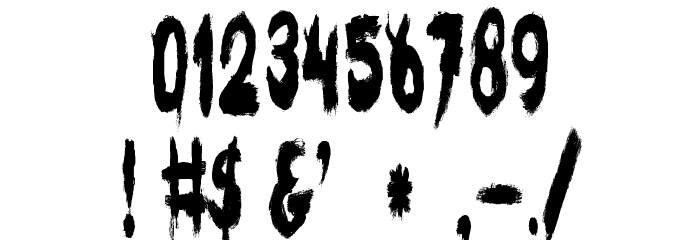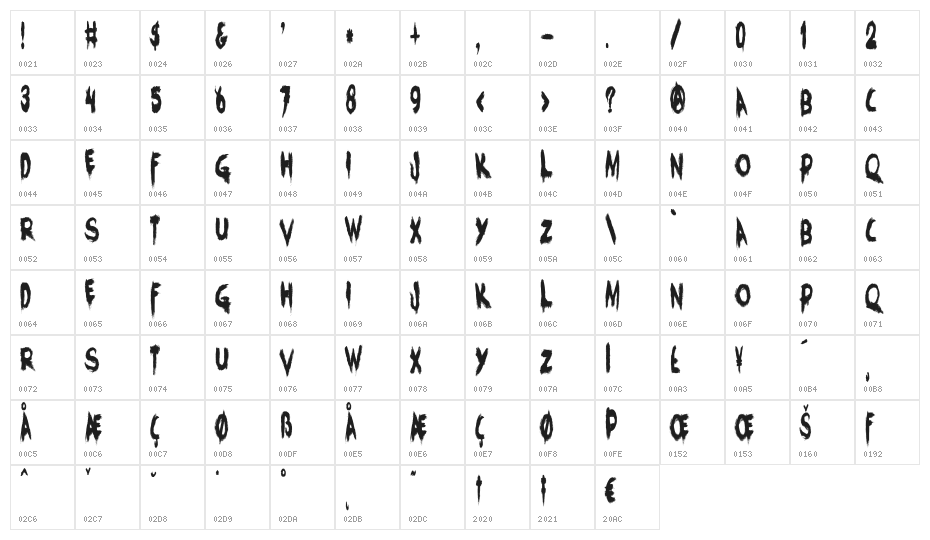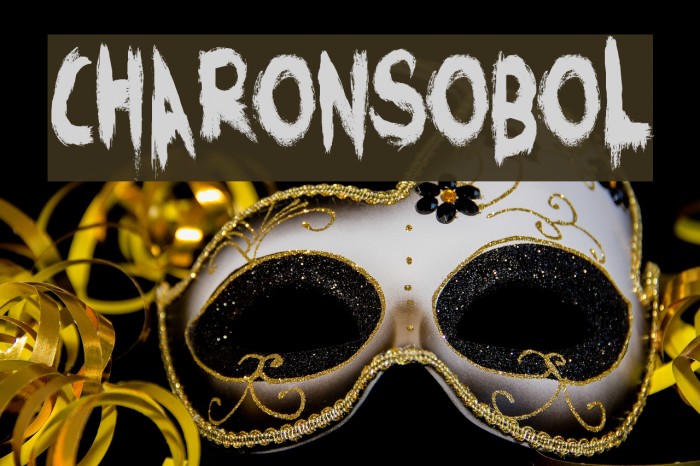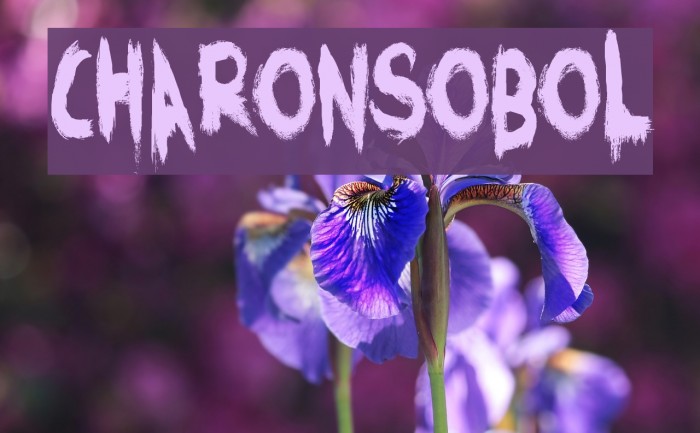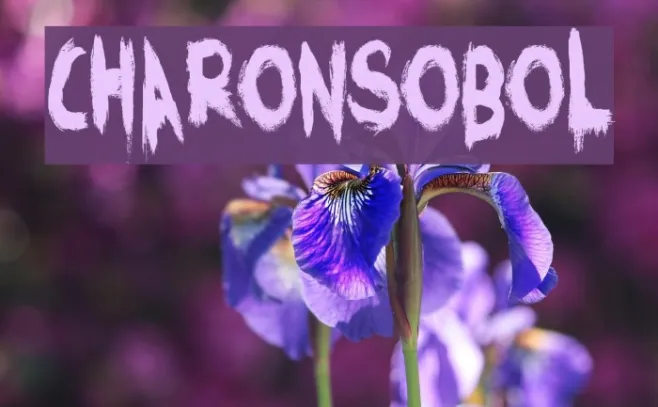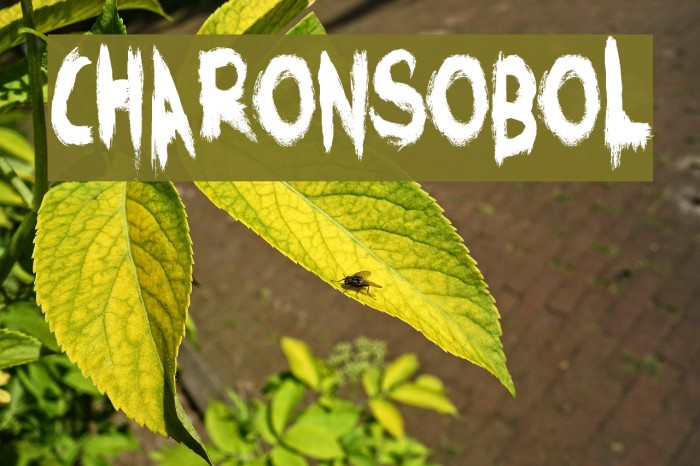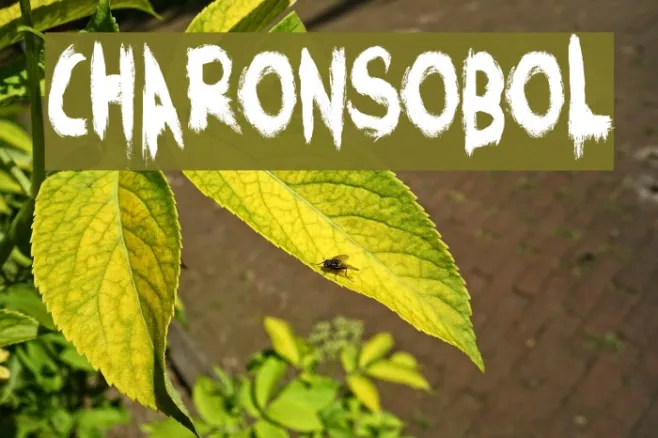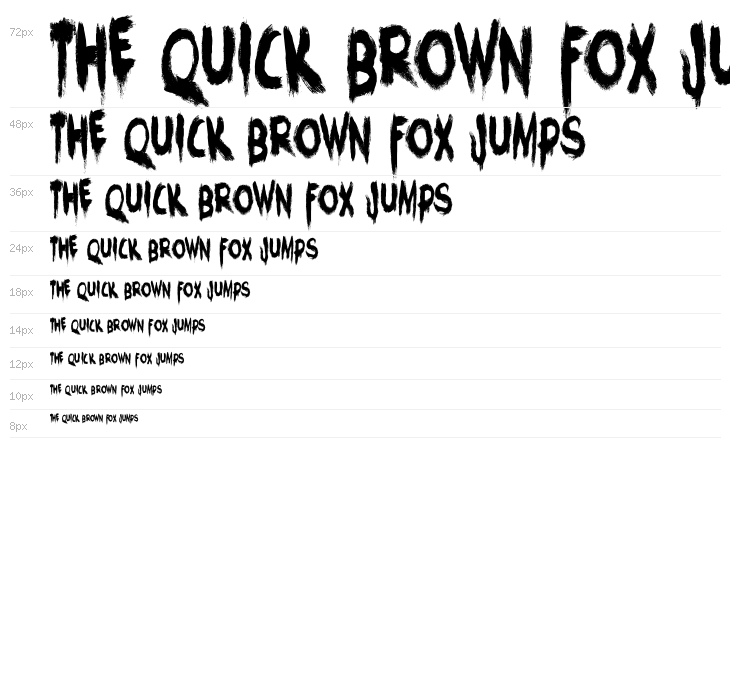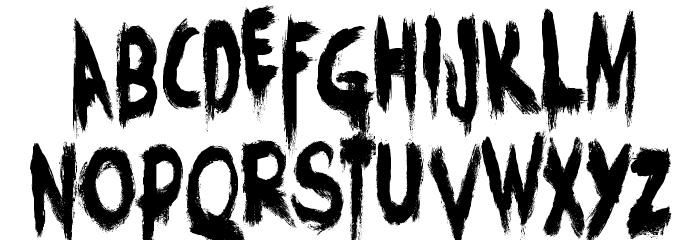
CharonsObol Font
CharonsObol Description
This font features a bold and expressive style with a brush-like texture that gives it a raw and energetic appearance. The strokes are uneven and jagged, creating a sense of movement and intensity. Each character appears as if it has been painted with a heavy brush, resulting in a highly textured and dynamic look. The uppercase and lowercase letters maintain a consistent style, while the numbers and special characters complement the overall aesthetic. This font is ideal for projects that require a dramatic and impactful visual statement.
| Proposed Projects | Ideal for music album covers, horror movie posters, edgy branding, and artistic event flyers. |